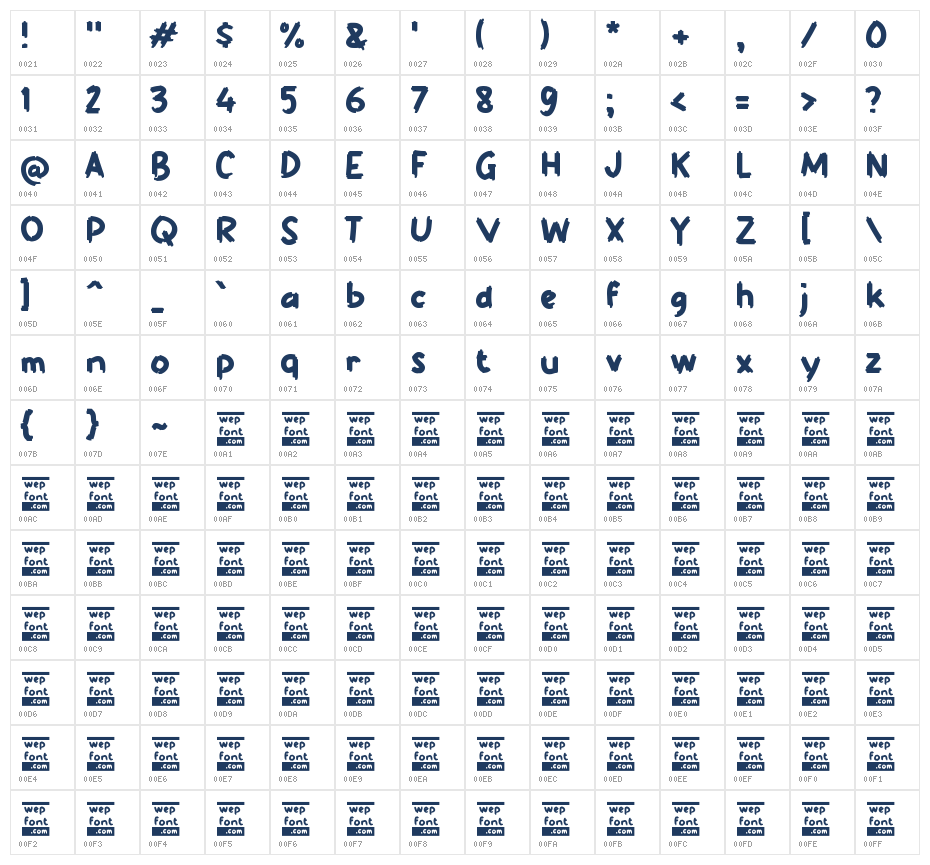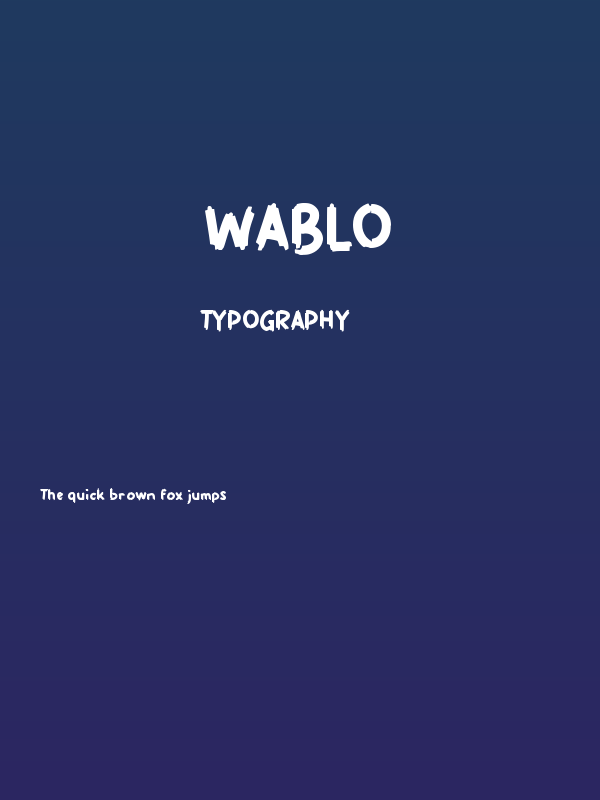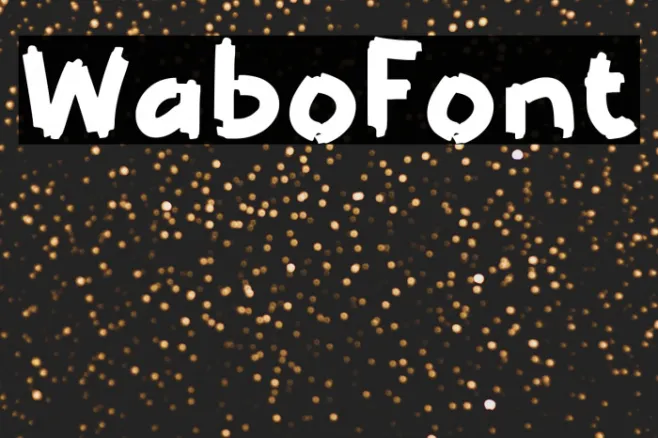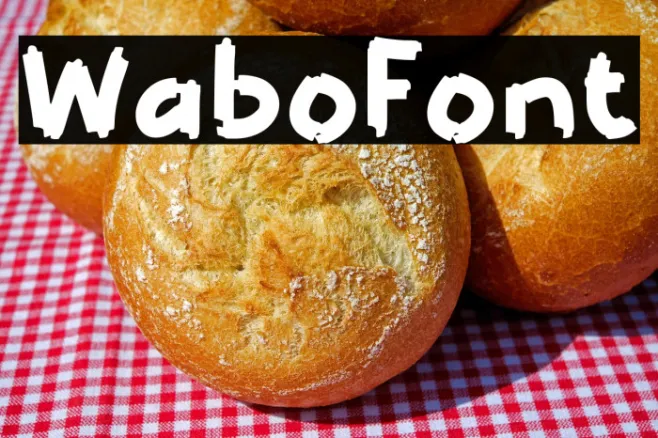
Wablo Font
Wablo Description
A playful, bold, and irregular handwritten style font with a casual and fun appearance.
| Overall Style | Casual, Playful, Handwritten |
| Use Case | Headlines, Posters, Children's materials, Logos |